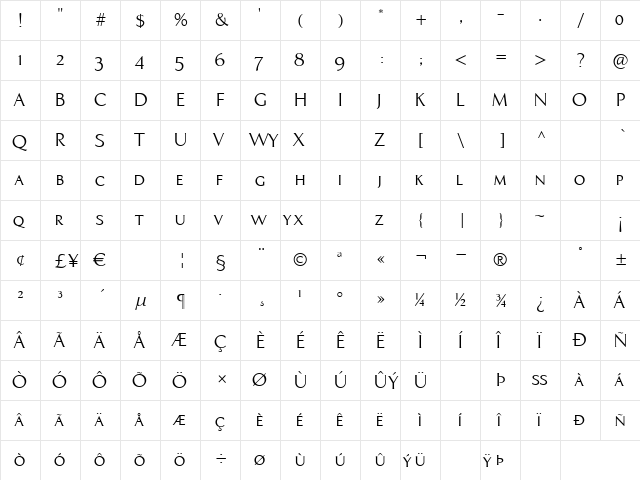
Aperto SmCap SCOSF
Design Context for Aperto SmCap Typeface
Aperto SmCap is a composed and adaptable typeface that performs quietly and consistently across a wide range of design contexts.